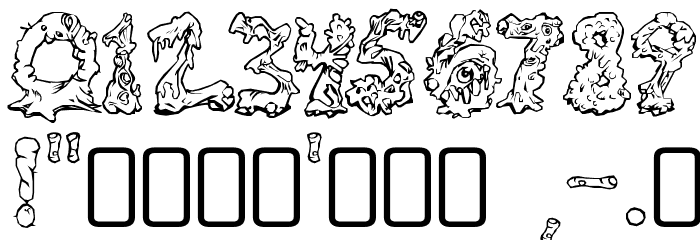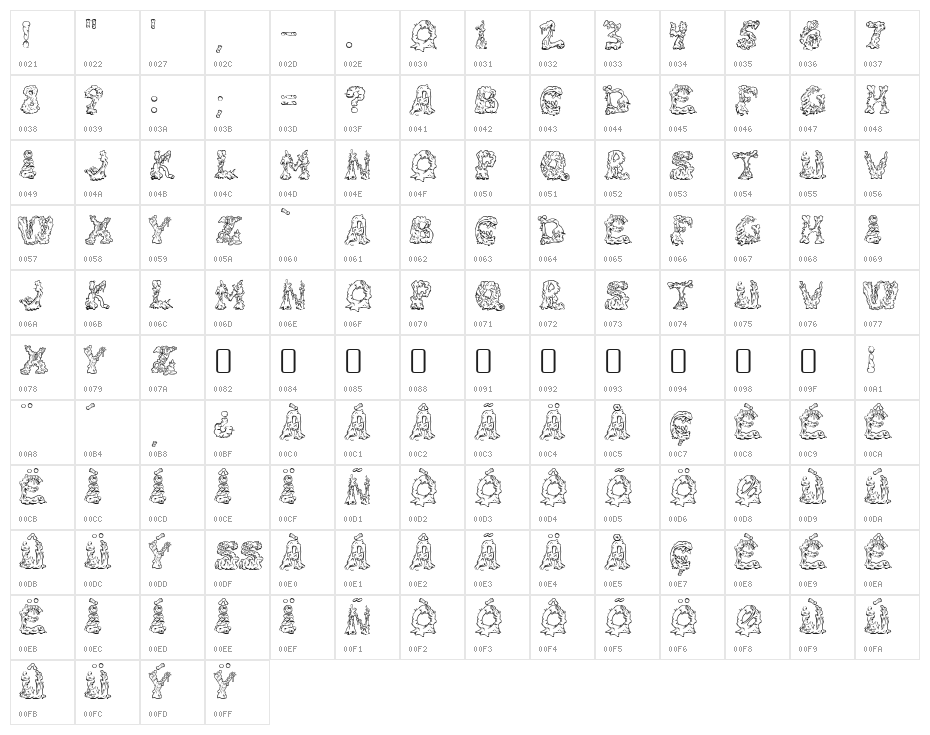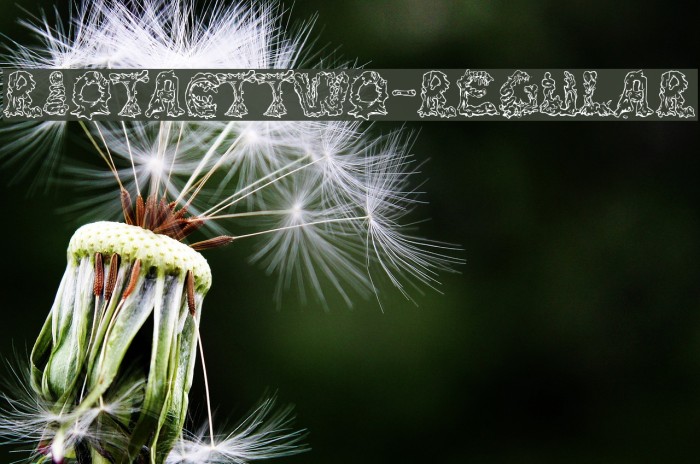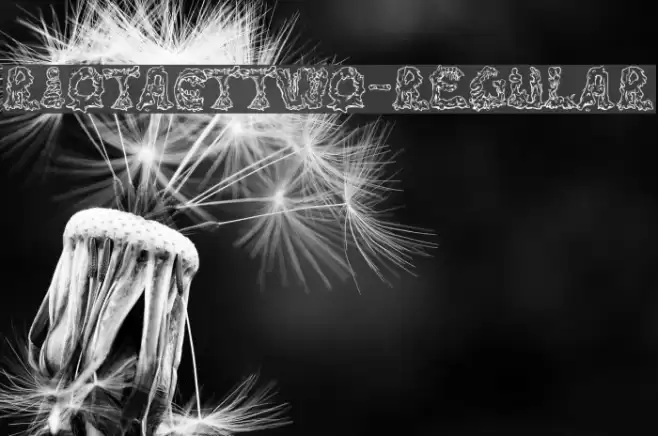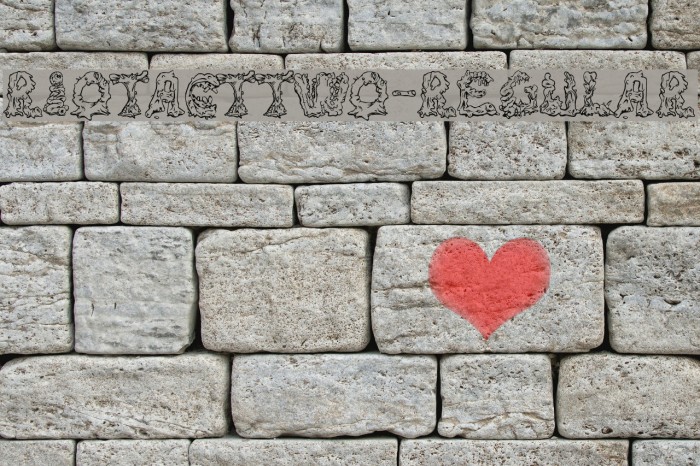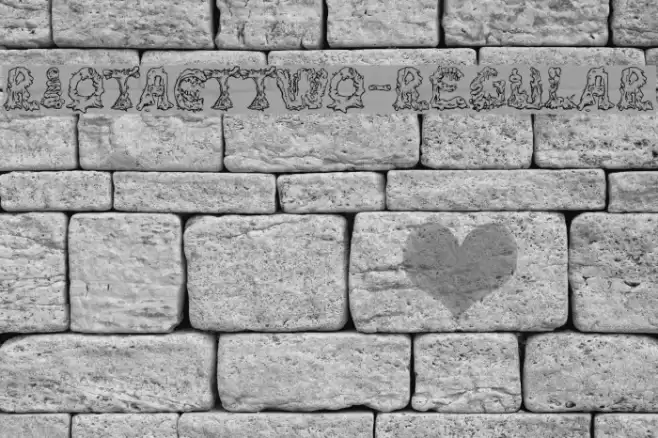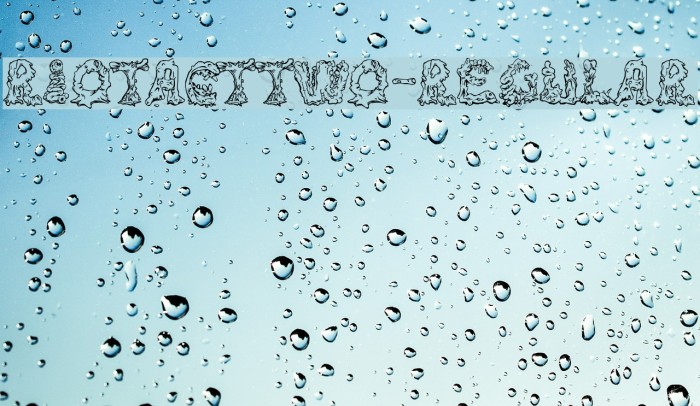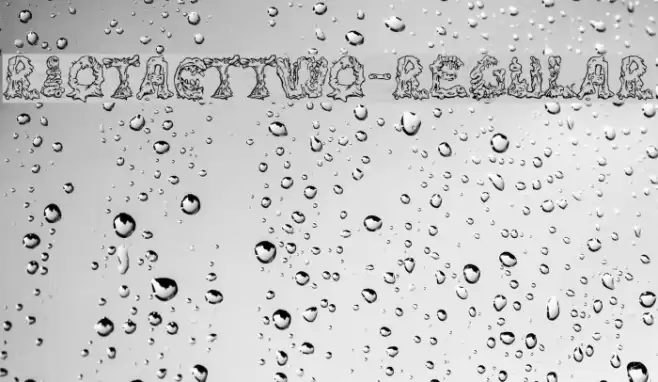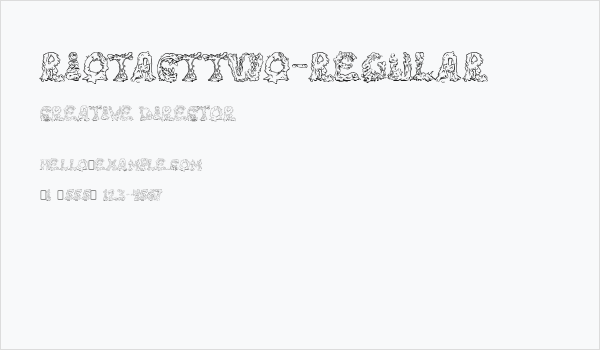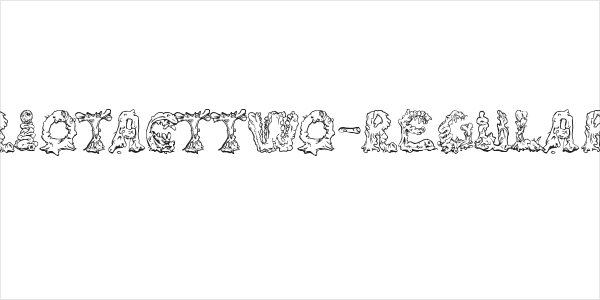
RiotActTwo-Regular Font
RiotActTwo-Regular Description
This font features a highly decorative and playful style, with each character appearing as if it is composed of organic, fluid shapes. The letters and numbers have a whimsical, almost monstrous appearance, with exaggerated curves and irregular outlines that give them a unique, eye-catching look. The design is intricate, with each character containing details that resemble dripping or melting forms, adding to its quirky and imaginative aesthetic. This font is perfect for projects that require a bold and unconventional visual impact, such as Halloween-themed designs or creative branding for unique products.
| Proposed Projects | Ideal for Halloween-themed designs, creative branding, children's book covers, and unique product packaging. |